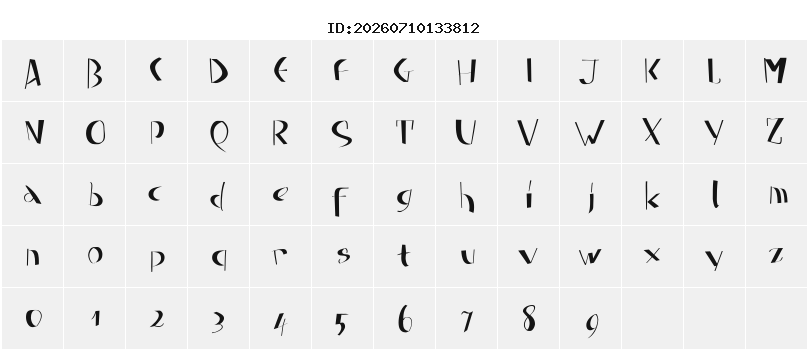
FatFineFree Preview
About FatFineFree.ttf
FatFineFree.ttf is a modern, elegant sans-serif font designed for ultimate readability and visual harmony. Perfect for branding, headlines, web design, and print materials.